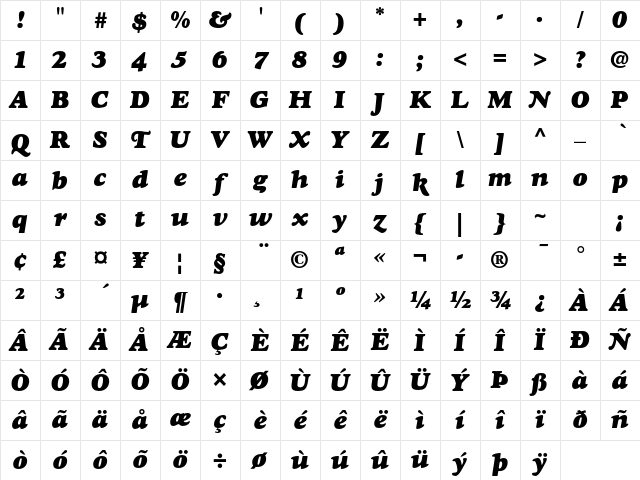
Goudy Heavyface Std Italic
Designer: Frederic W. Goudy, Morris Fuller Benton
Design Context for Goudy Heavyface Std
Goudy Heavyface Std is a composed and adaptable typeface that performs quietly and consistently across a wide range of design contexts. The slanted form adds forward momentum and visual energy.
Pro Tip: Use Goudy Heavyface Std for emphasis, pull quotes, and subheadings where its slanted energy can add rhythm to the layout.